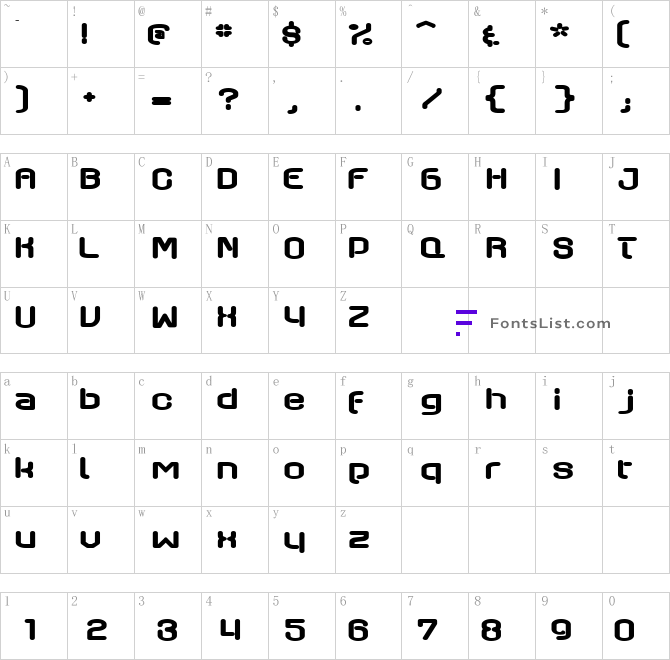
- Font Name:Axaxax
Axaxax-regular-copy-1-.ttf is a very beautiful artistic font, Axaxax-regular-copy-1-.ttf is widely used in the design and printing of various books and pictures,Axaxax-regular-copy-1-.ttf has a strong visual impact,Axaxax-regular-copy-1-.ttf is a commonly used font in newspapers, magazines and books, and is used in posters, e-commerce Poster design, store design, logo design, font design and other fields.Axaxax-regular-copy-1-.